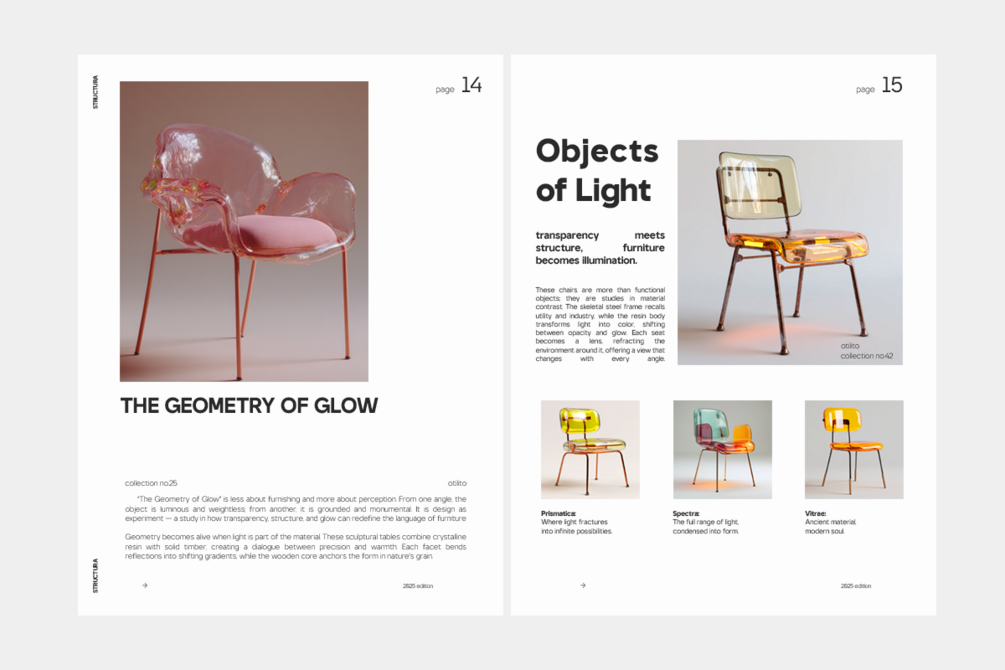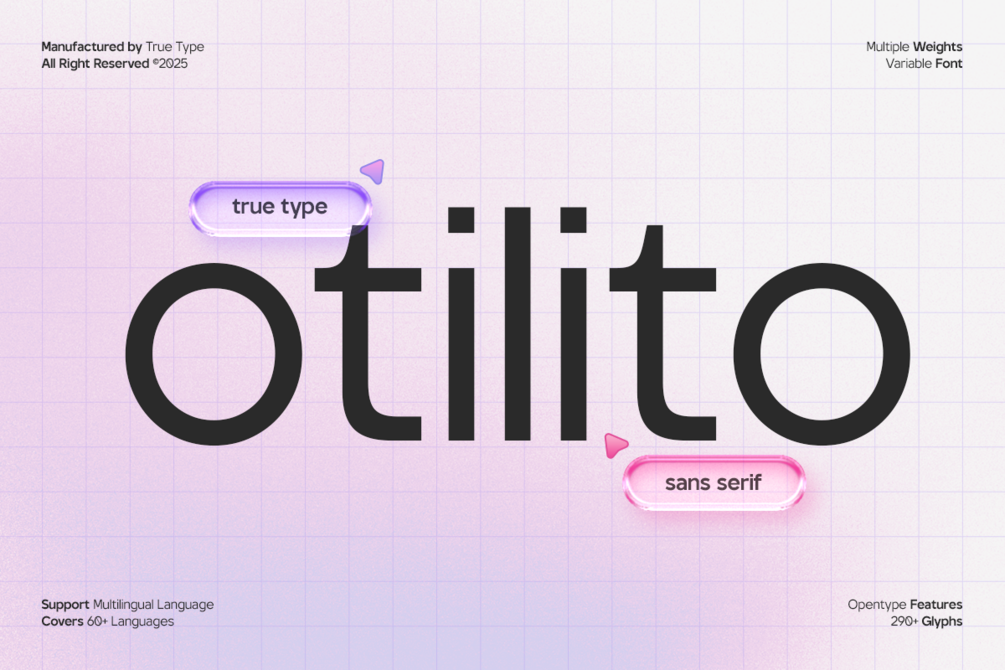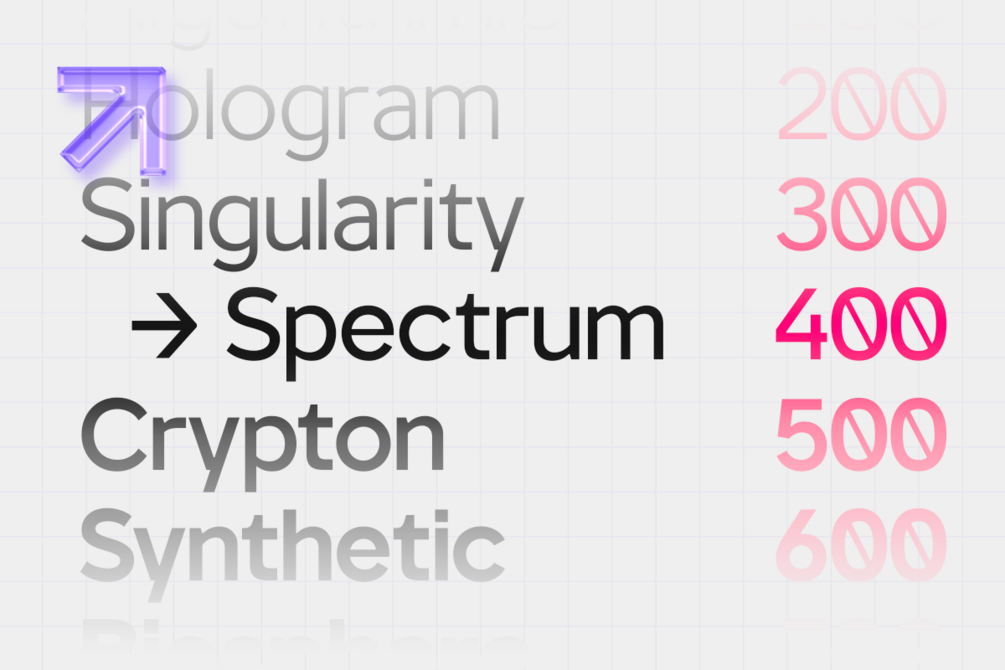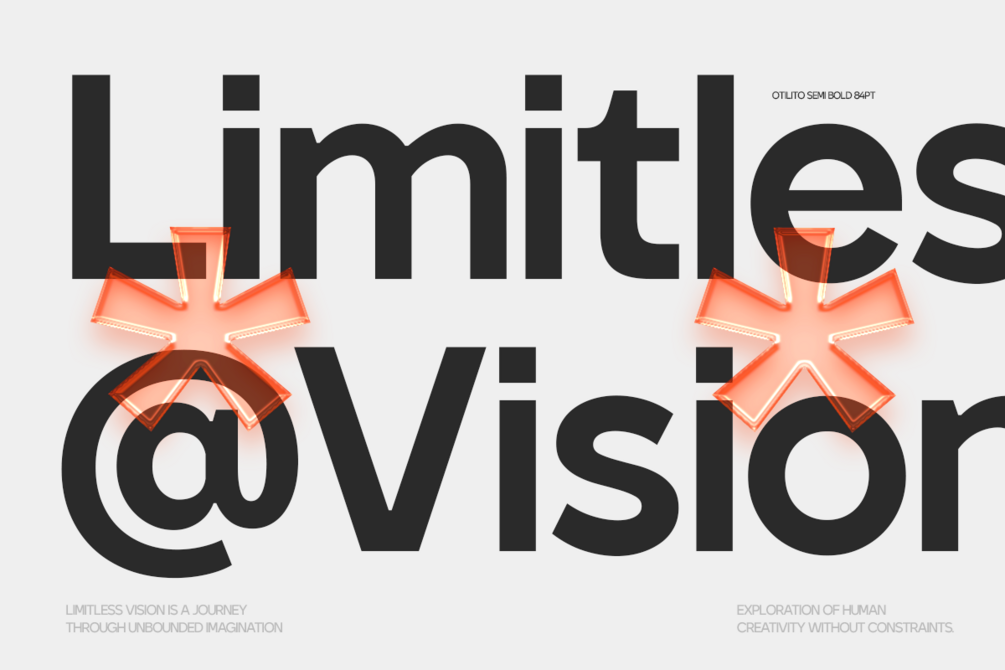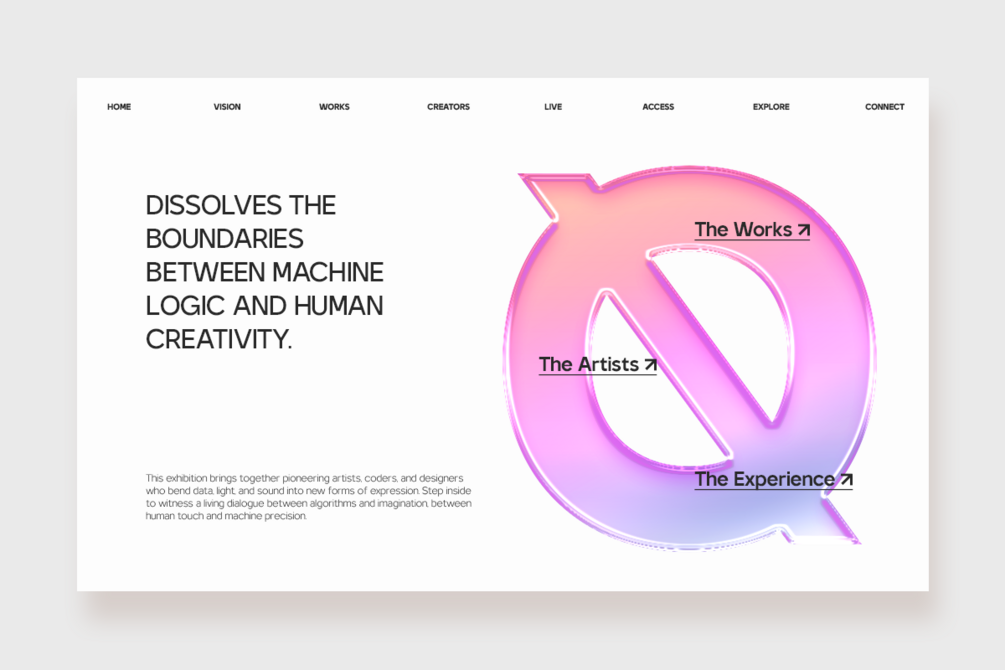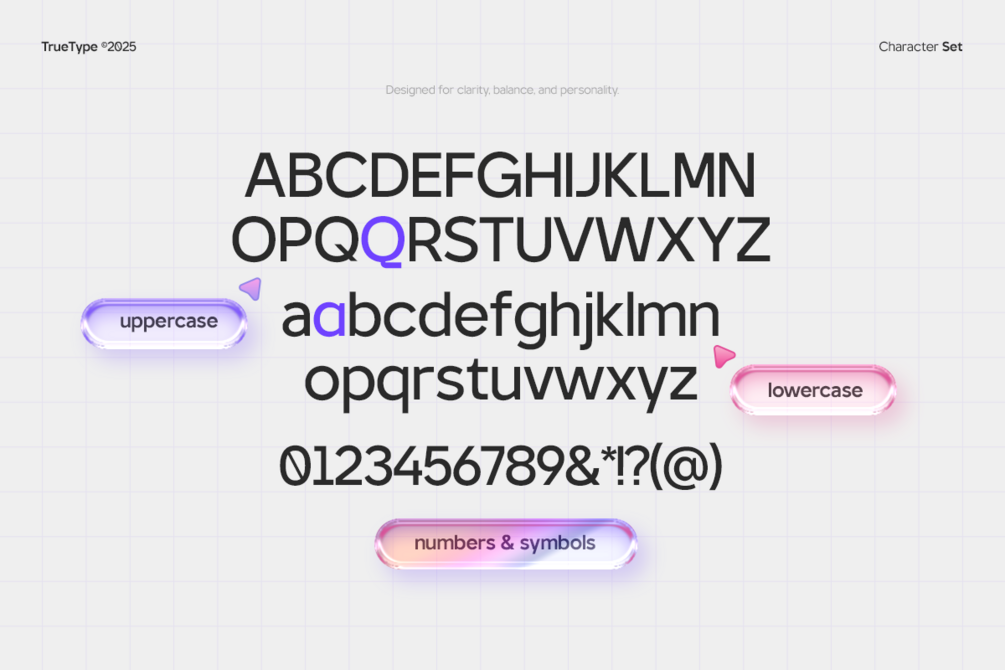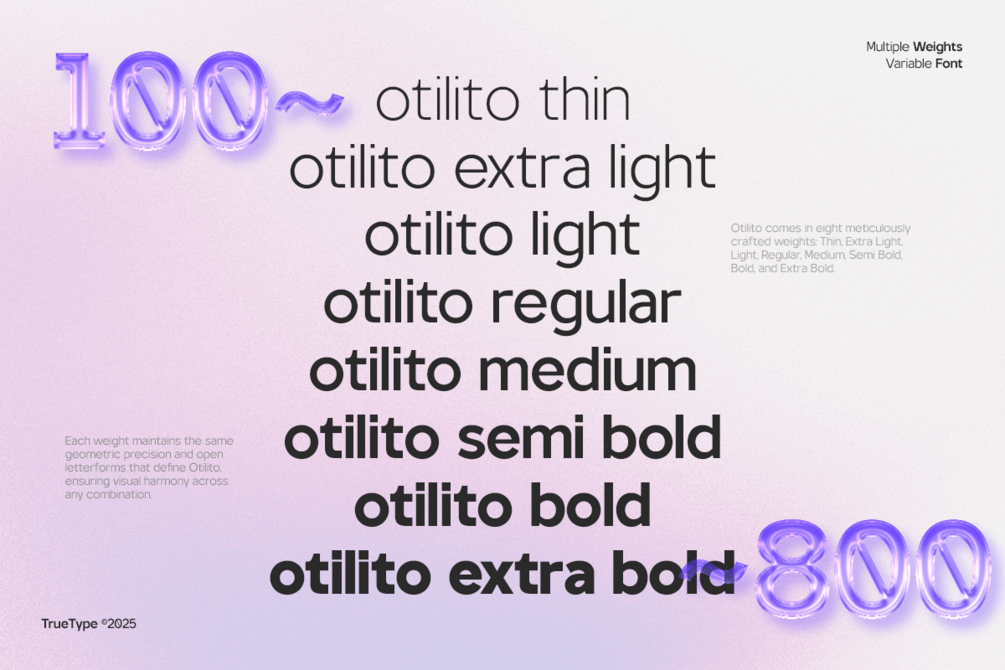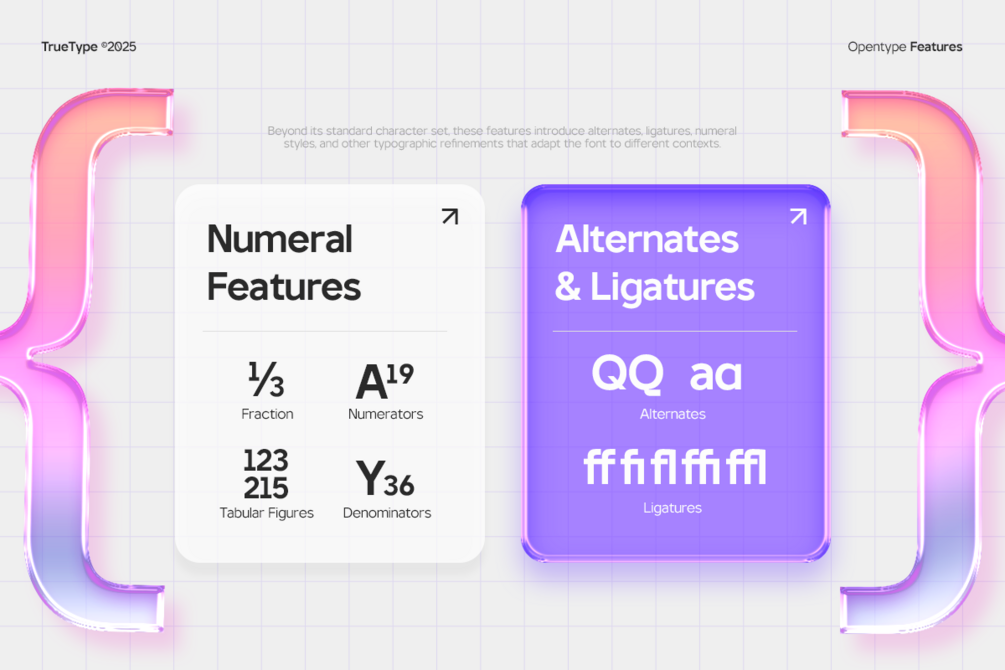
TT Otilito – Sans Font Family
TT Otilito is a modern sans serif typeface with semi-grotesque characteristics and a unique personality. Designed to be clean and functional, yet distinctive, it blends geometric balance with subtle quirks that give it charm and flexibility.
It’s a highly usable font family, offering multiple weights and styles to support diverse design needs — from branding and editorial work to digital interfaces and packaging.
Perfect for visual identities, headlines, logos, magazines, and interfaces, TT Otilito delivers clarity without sacrificing character. It's a reliable tool for designers seeking modern aesthetics with a touch of originality.
Alternates & Ligatures
Available